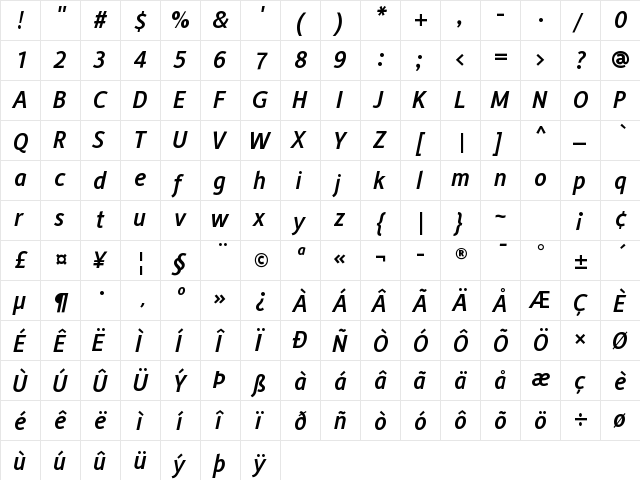
Alber Medium Italic
| Foundry | C.Dickinson |
| Designer | C.Dickinson |
Design Context for Alber Typeface
Alber takes a measured approach to typography — its balanced proportions and neutral character make it a reliable workhorse for both digital and print work. The slanted form adds forward momentum and visual energy.
Pro Tip: Try Alber for annotation and caption copy alongside an upright companion — the contrast in angle creates a dynamic but ordered typographic system.